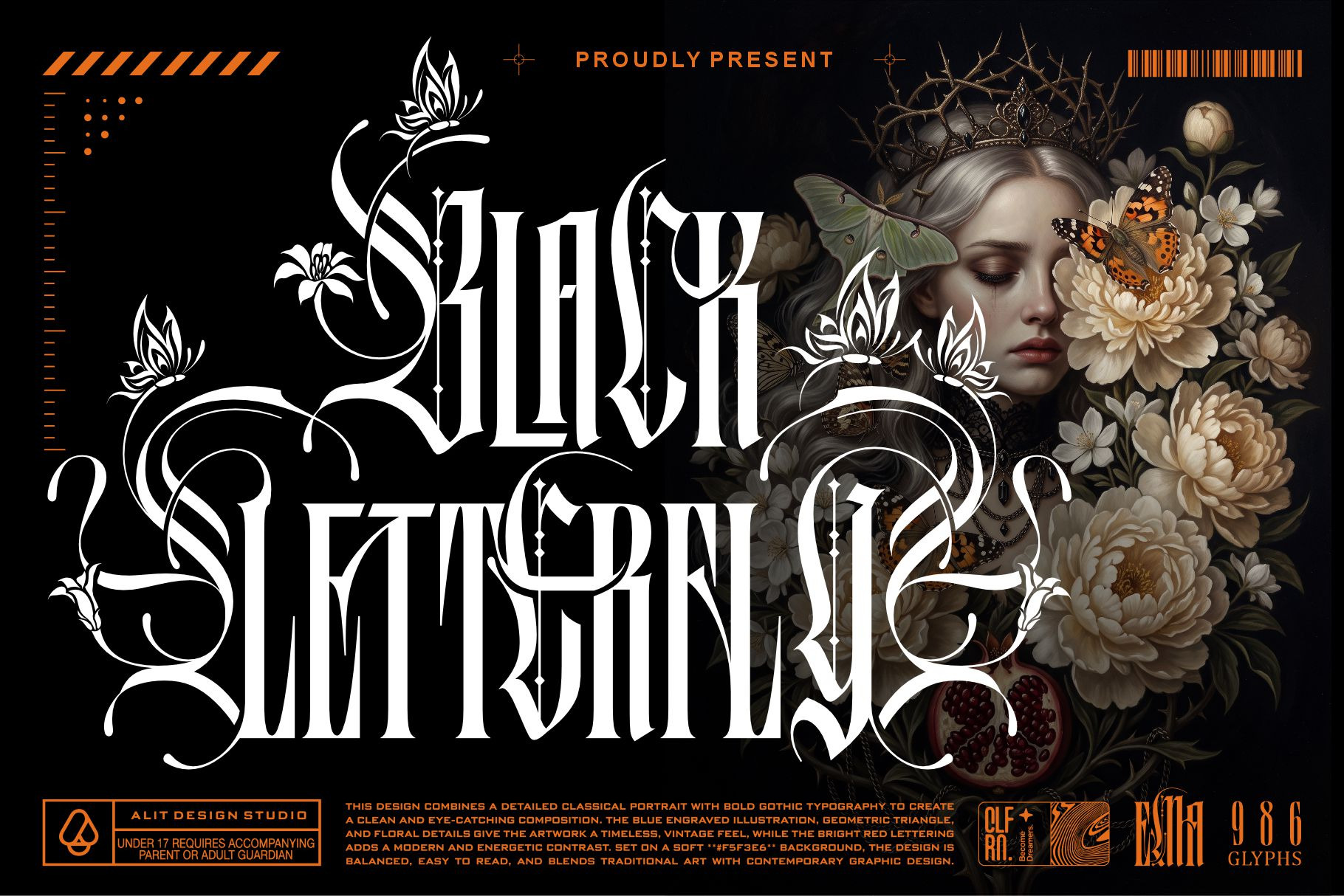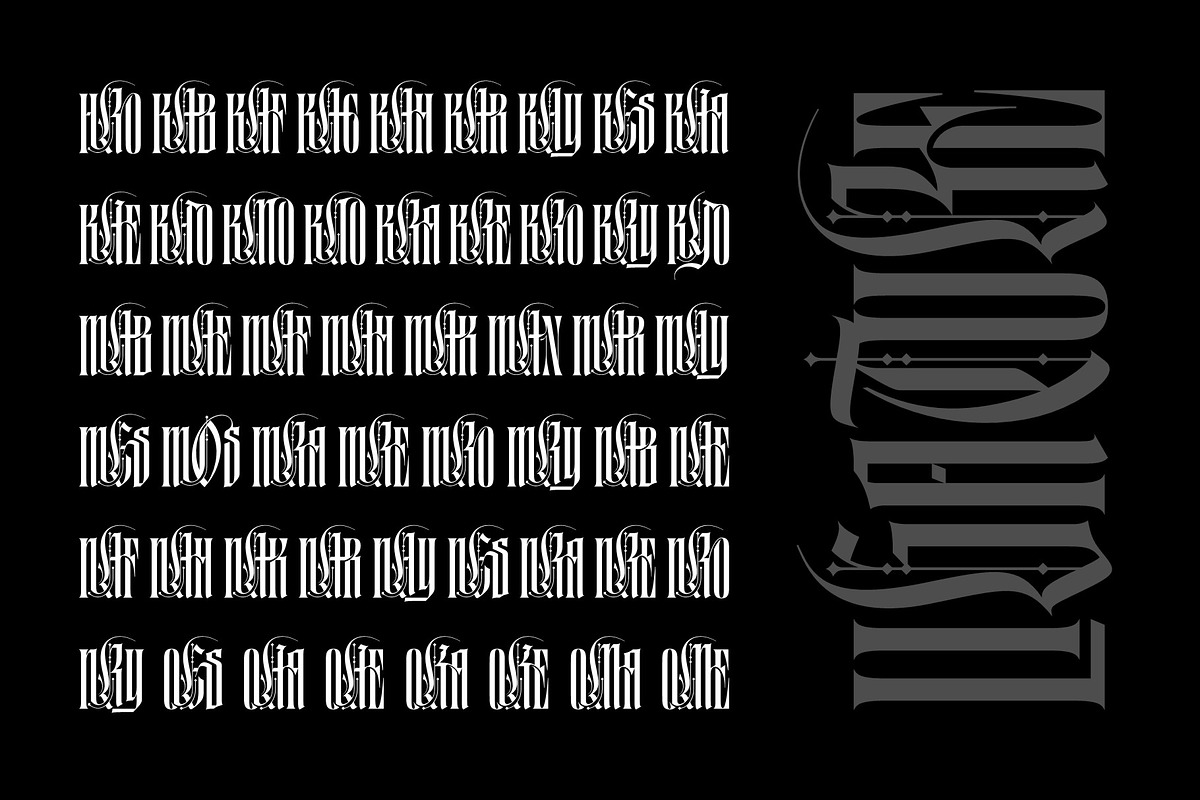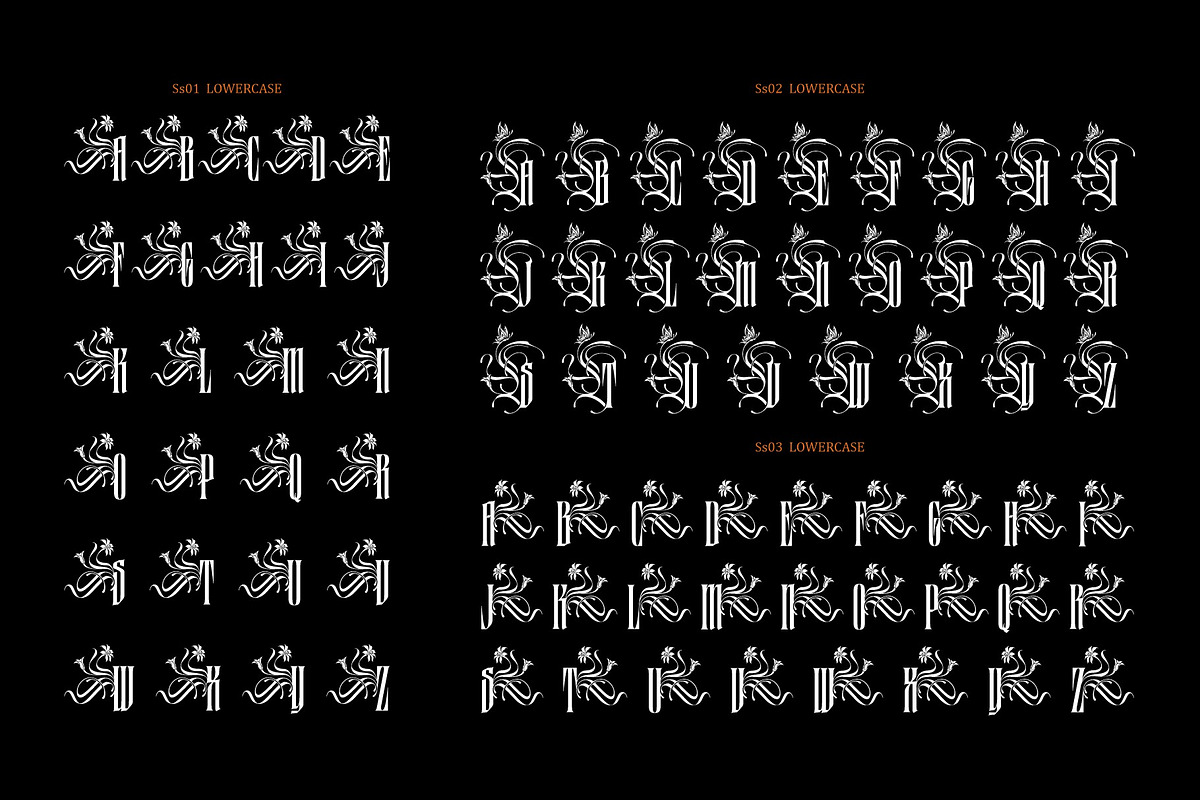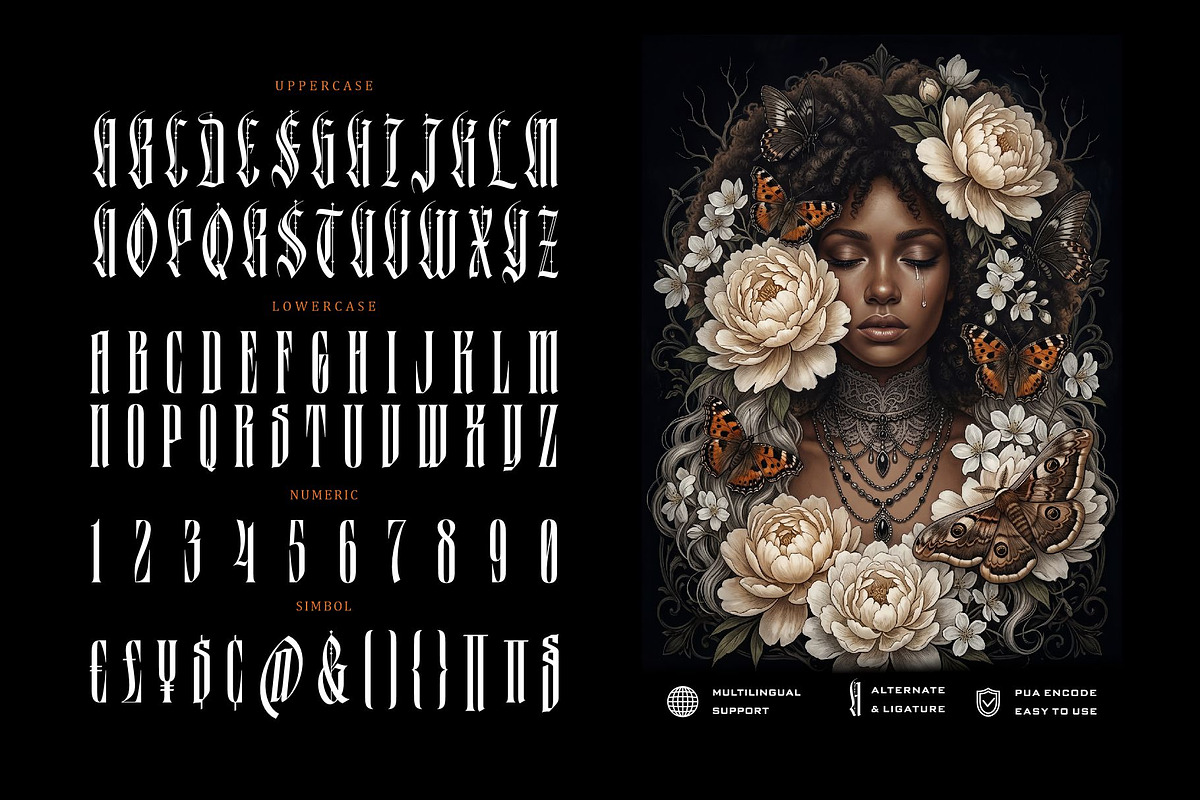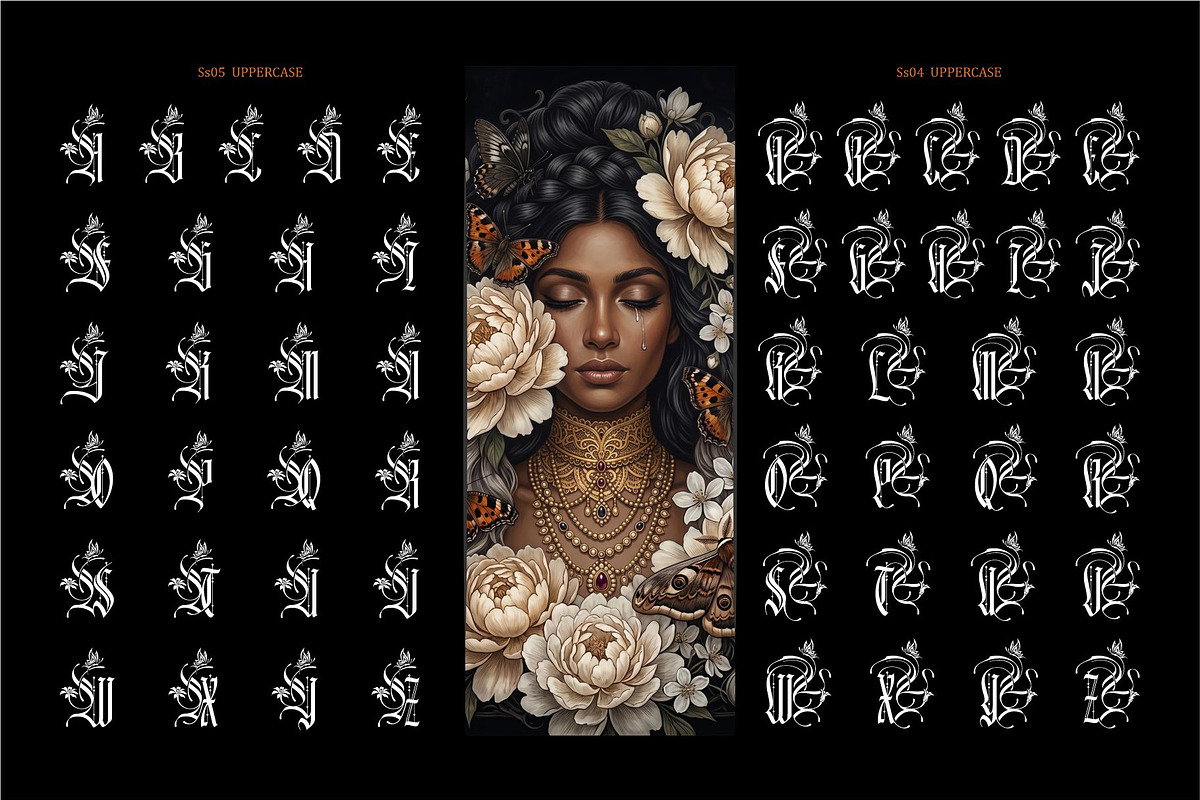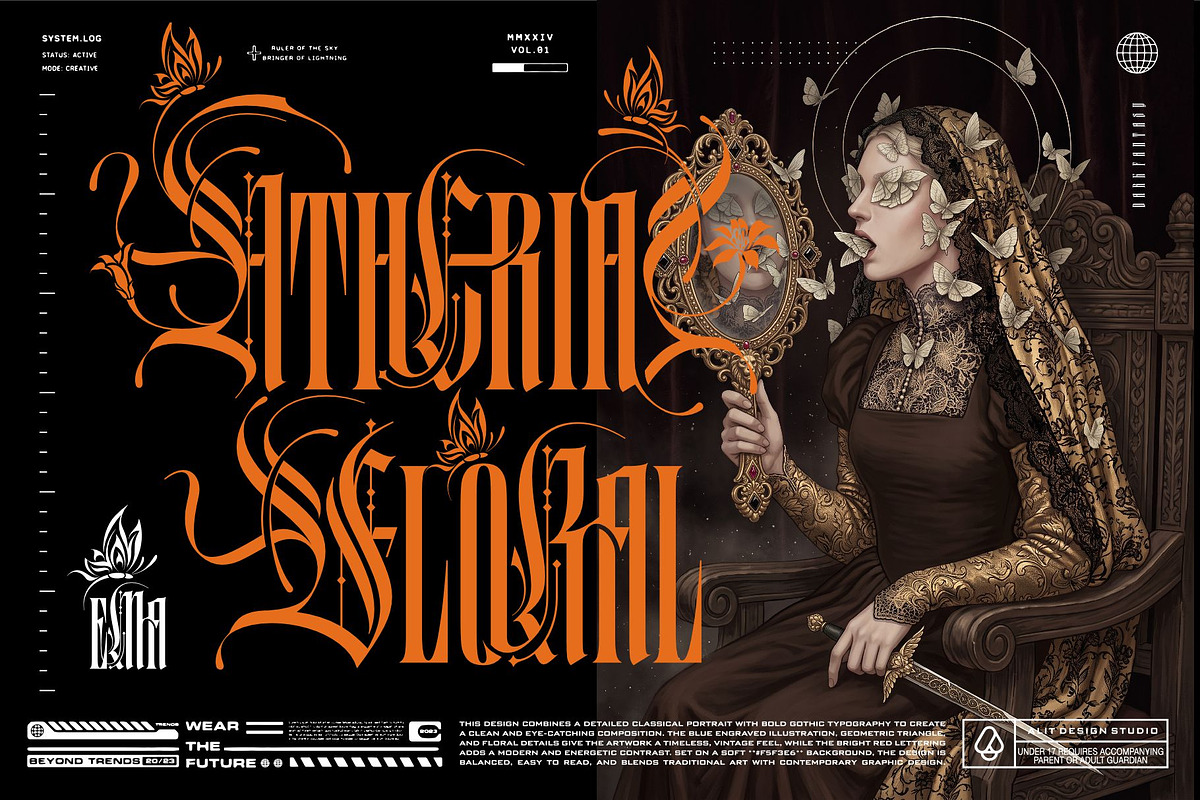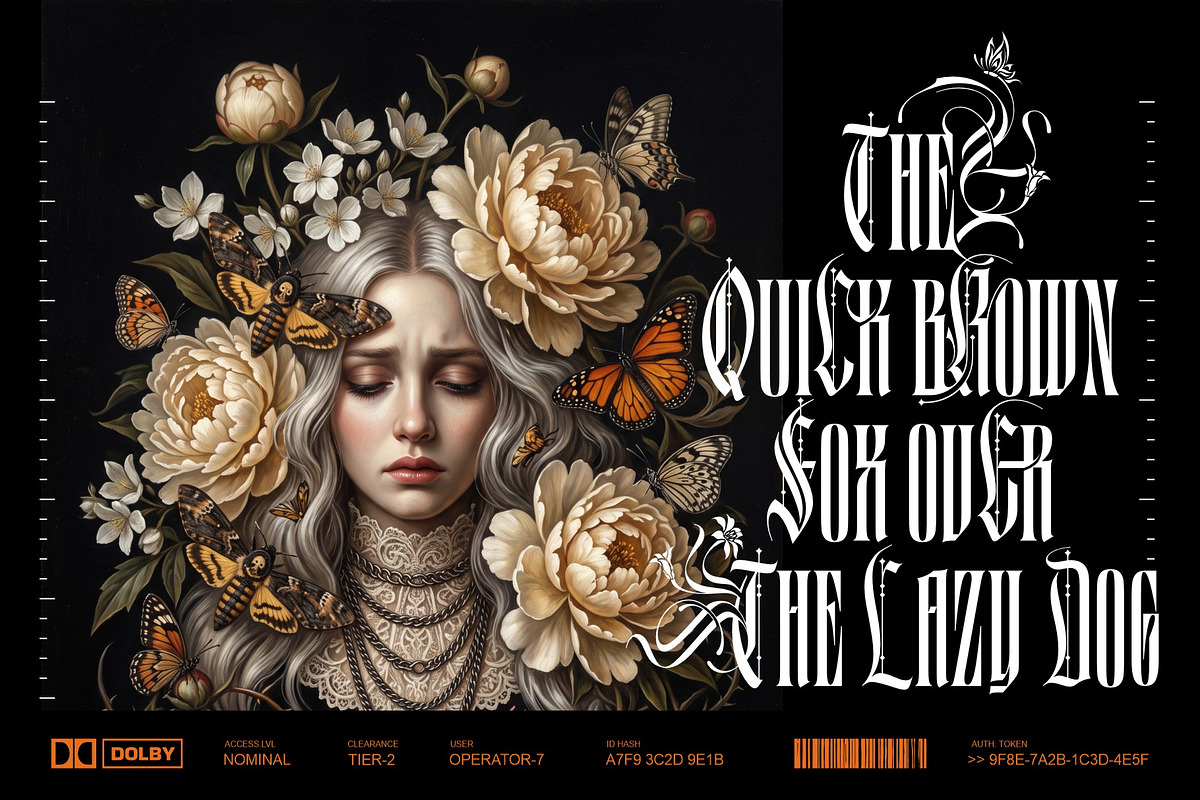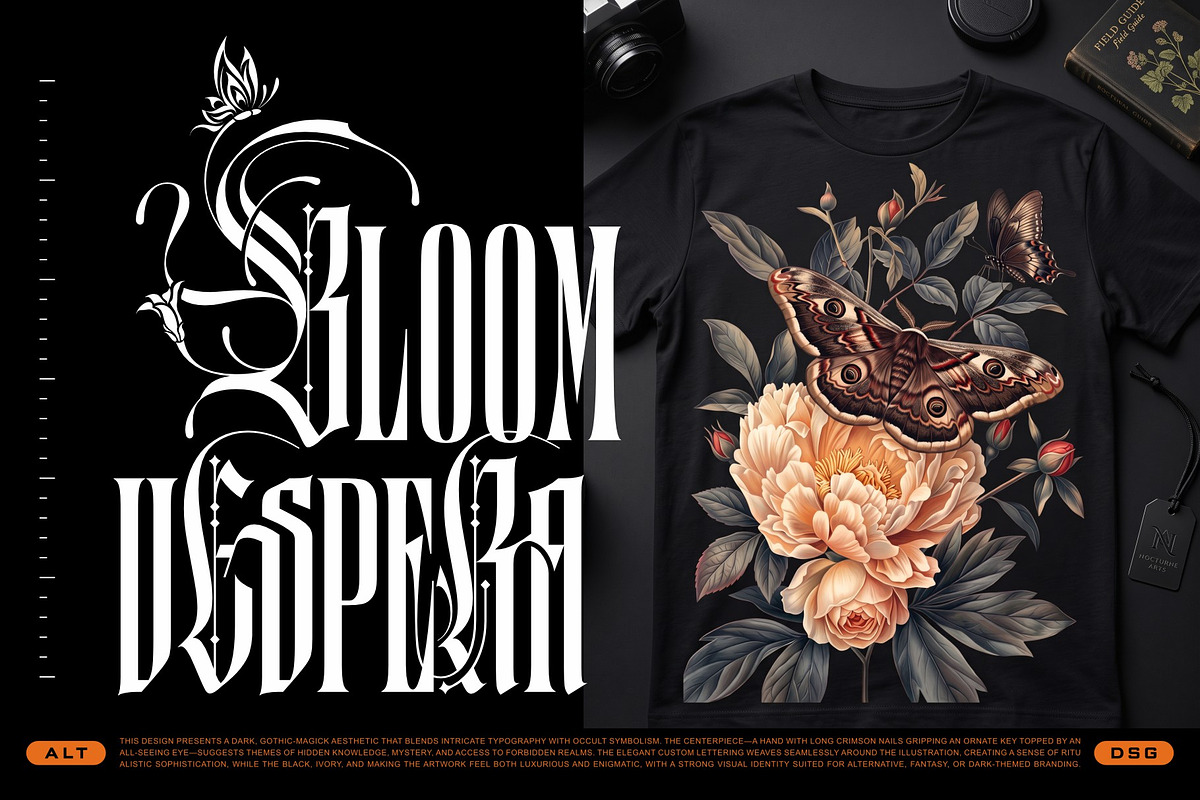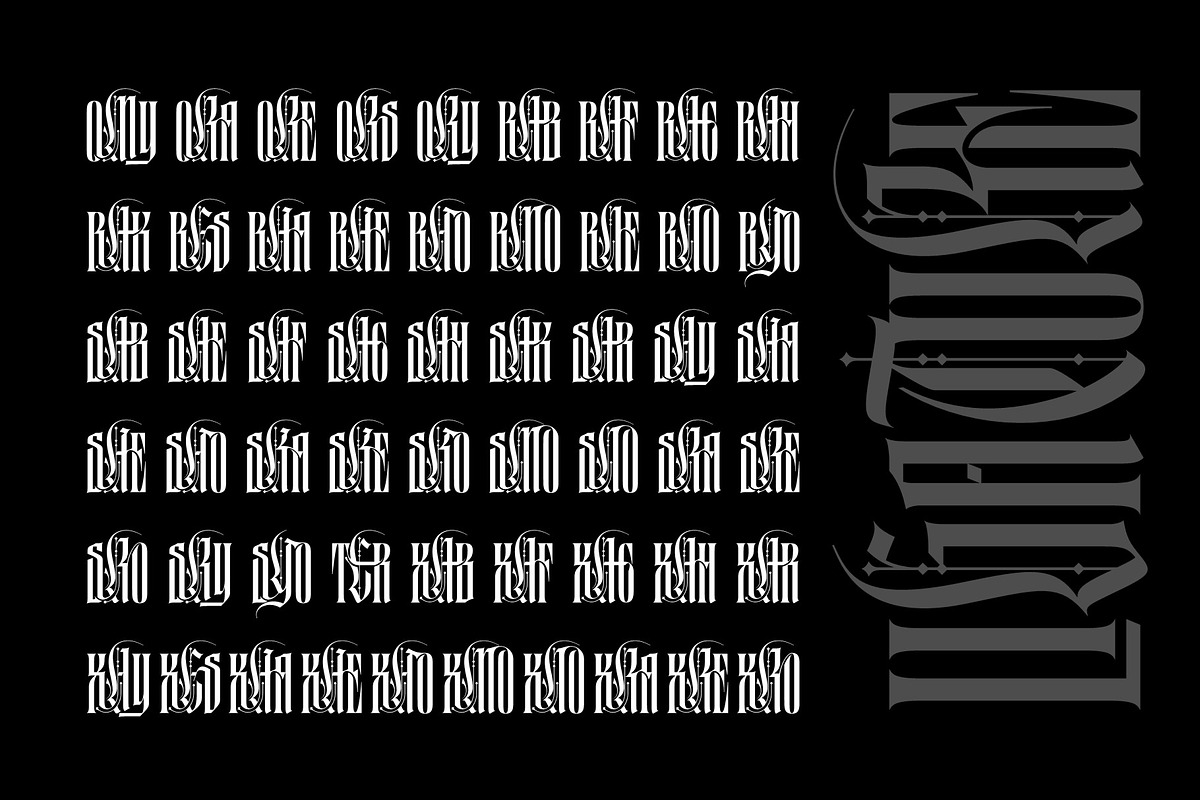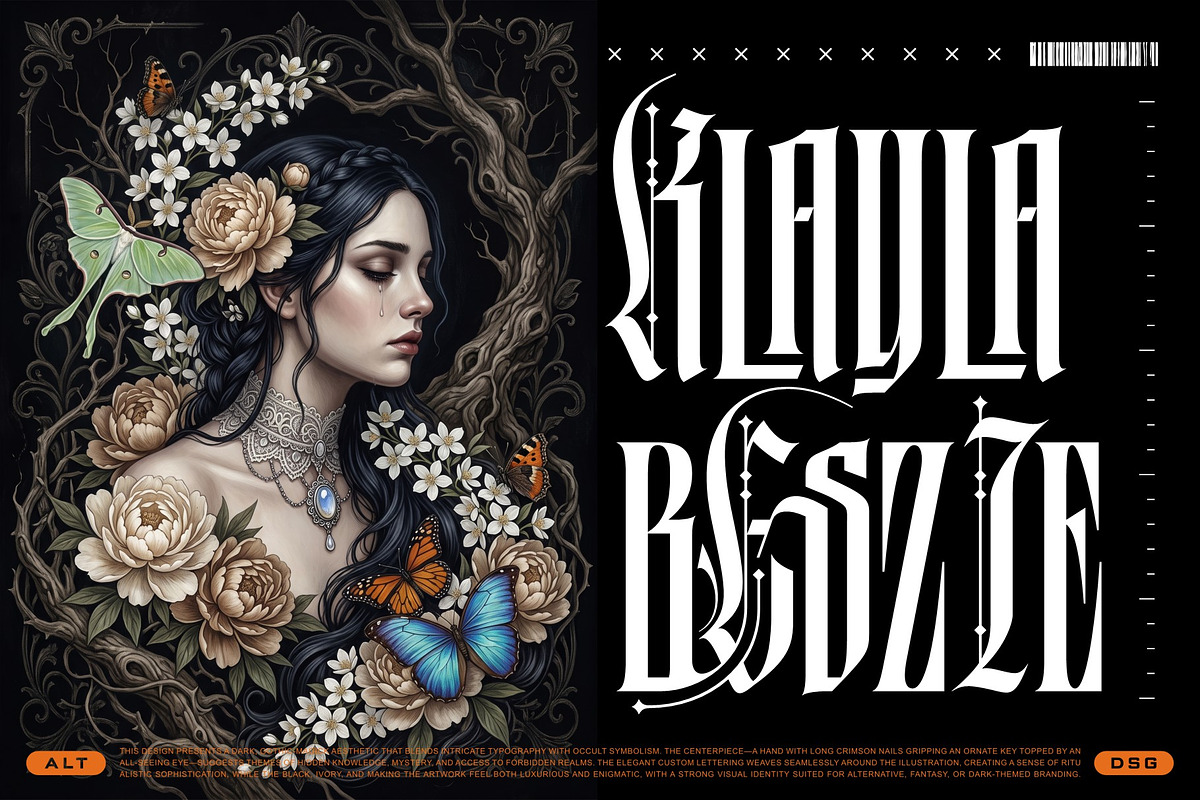
Black Letterfly Typeface
Introduce Black Letterfly, a striking, elegant, and modern blackletter typeface that seamlessly blends classical gothic aesthetics with contemporary graphic design. Featuring a total of 986 glyphs, this font is meticulously crafted to give your projects a majestic, mysterious, and high-end feel.
Inspired by vintage engravings, dark fantasy art, and modern streetwear culture, Black Letterfly comes packed with extensive stylistic sets (SS01 to SS06), gorgeous alternates, intricate ligatures, and comprehensive multilingual support. Whether you are designing album art, luxury apparel, gothic branding, book covers, or striking editorial layouts, Black Letterfly delivers a bold and unforgettable visual impact.
986 Glyphs Total: Packed with rich alternates, ligatures, and special characters.
Stylistic Sets (SS01 - SS06): Multiple unique stylistic alternatives for custom lettering freedom.
Multilingual Support: Accented characters supporting various languages.
Extensive Alternates & Ligatures: Customize your text with elaborate flourishes, botanical/butterfly accents, and seamless letter connections.
Versatile Application: Perfect for dark academia aesthetics, heavy metal band logos, streetwear fashion lines, mystical branding, posters, tattoo designs, and luxury packaging.